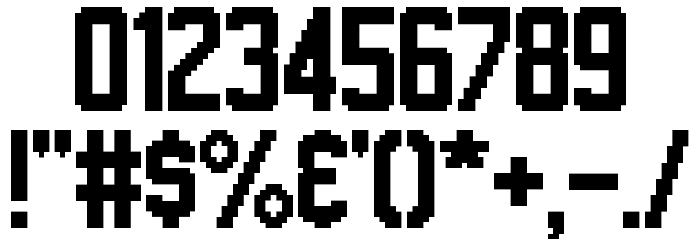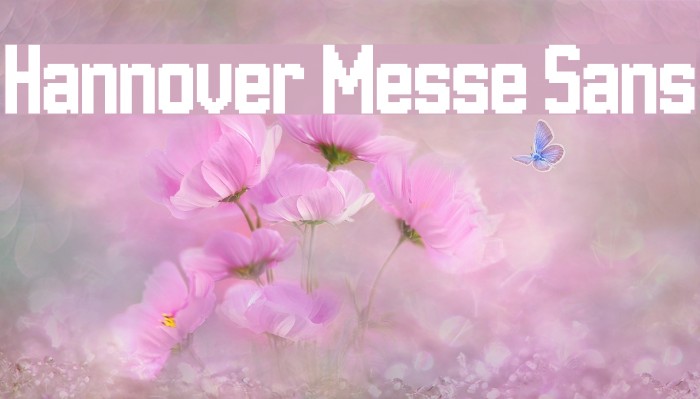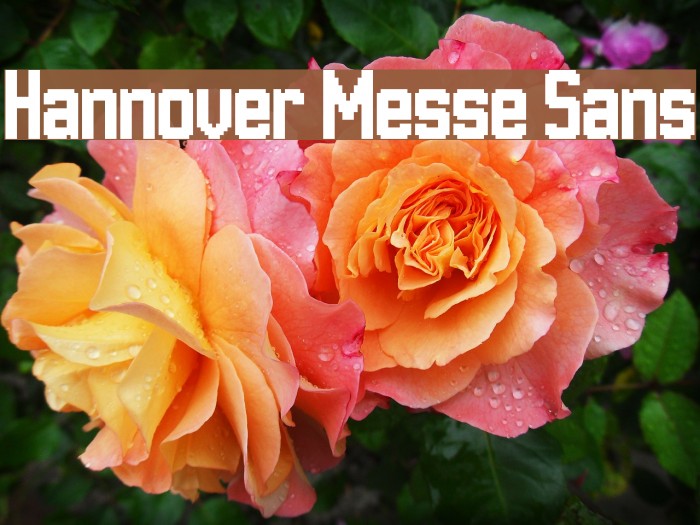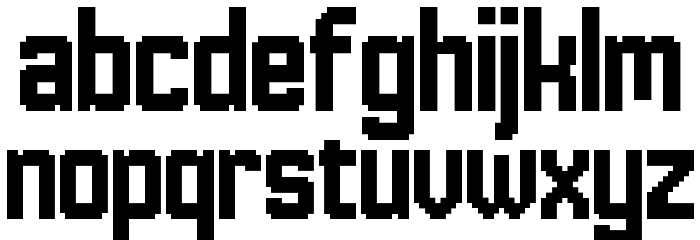
Hannover Messe Sans Font
This font features a bold, pixelated style reminiscent of early digital displays and retro video games. The characters are constructed with a blocky, grid-like appearance, giving it a distinctly digital and vintage feel. The uppercase and lowercase letters maintain a consistent height, contributing to a uniform and structured look. Numbers and special characters follow the same pixelated design, ensuring visual coherence across all glyphs. The font's geometric and angular nature makes it highly legible, even at smaller sizes, while its boldness ensures it stands out in any design.
• Proposed Projects: Ideal for retro-themed designs, video game graphics, digital art projects, and any creative work that requires a vintage digital look.
• Category: Decorative/Display
• Bold: Yes
• Italic: No
• Weight: Bold
• Width: Normal
• Character Spacing: Normal
• Contrast: Low
• Overall Style: Vintage
• Use Case: Headlines, Logos, Digital Art